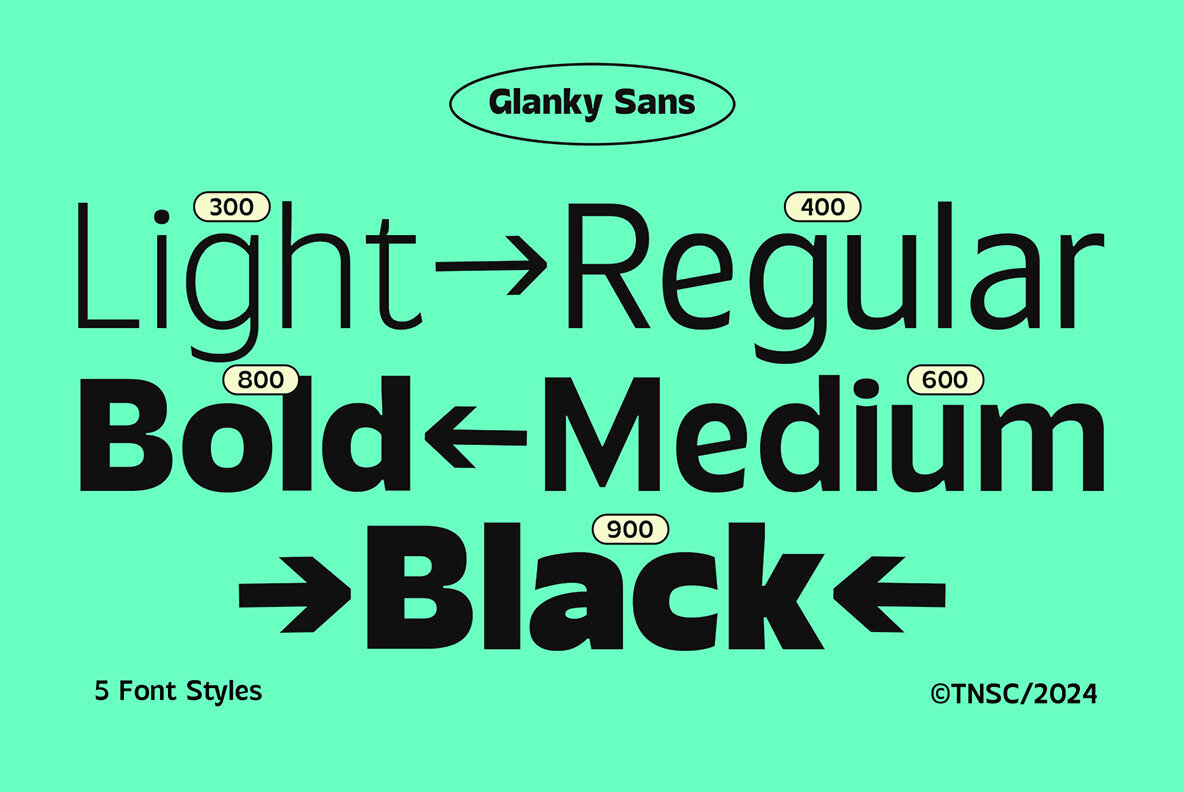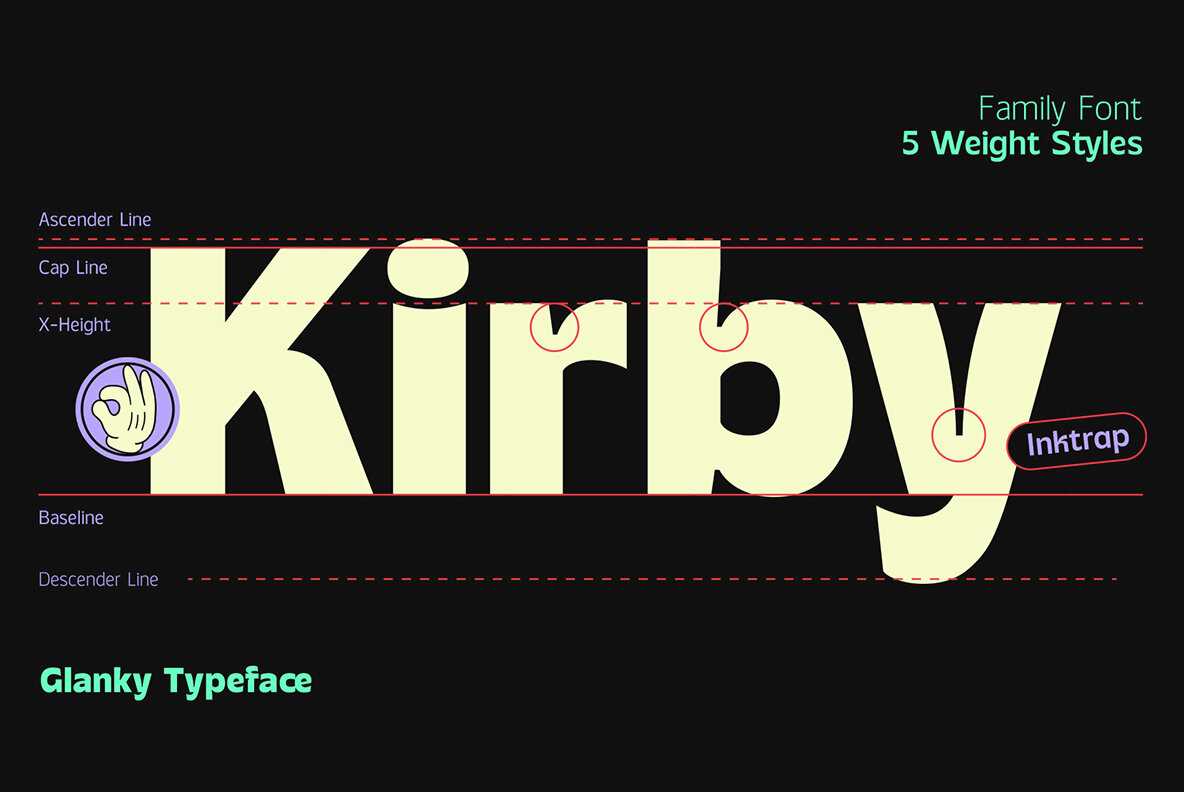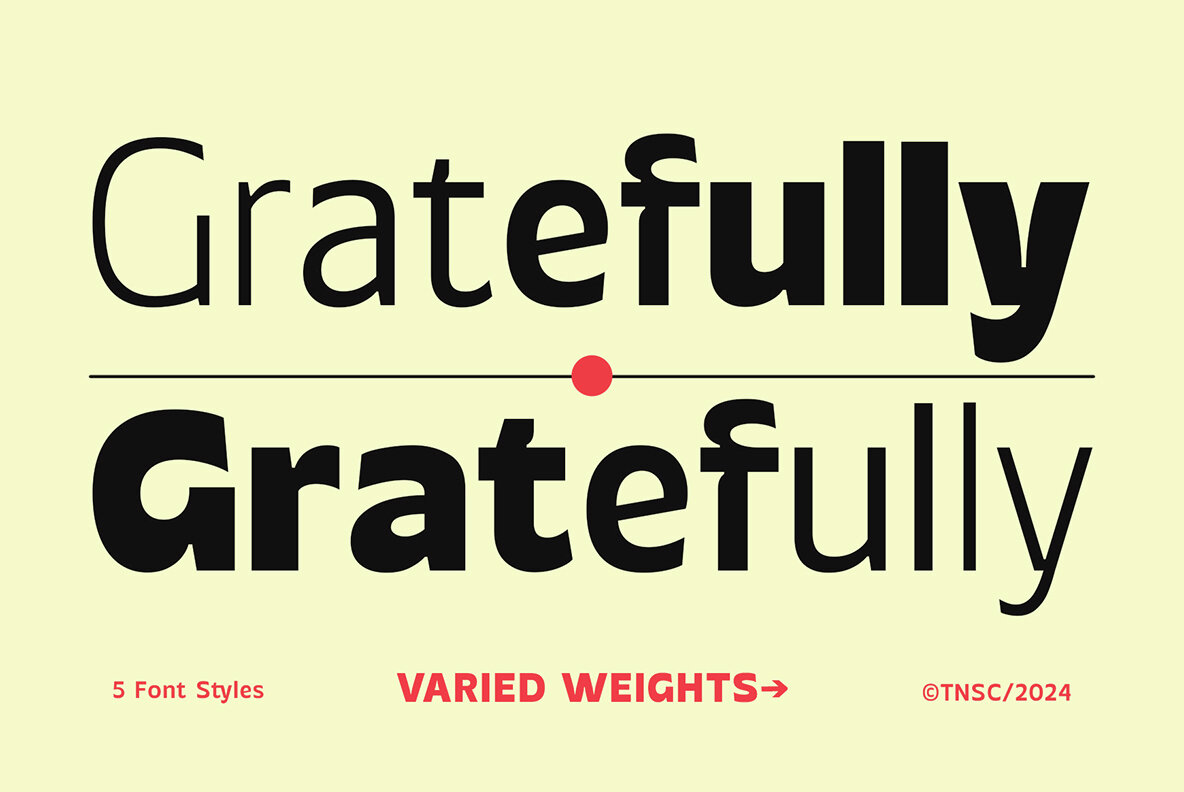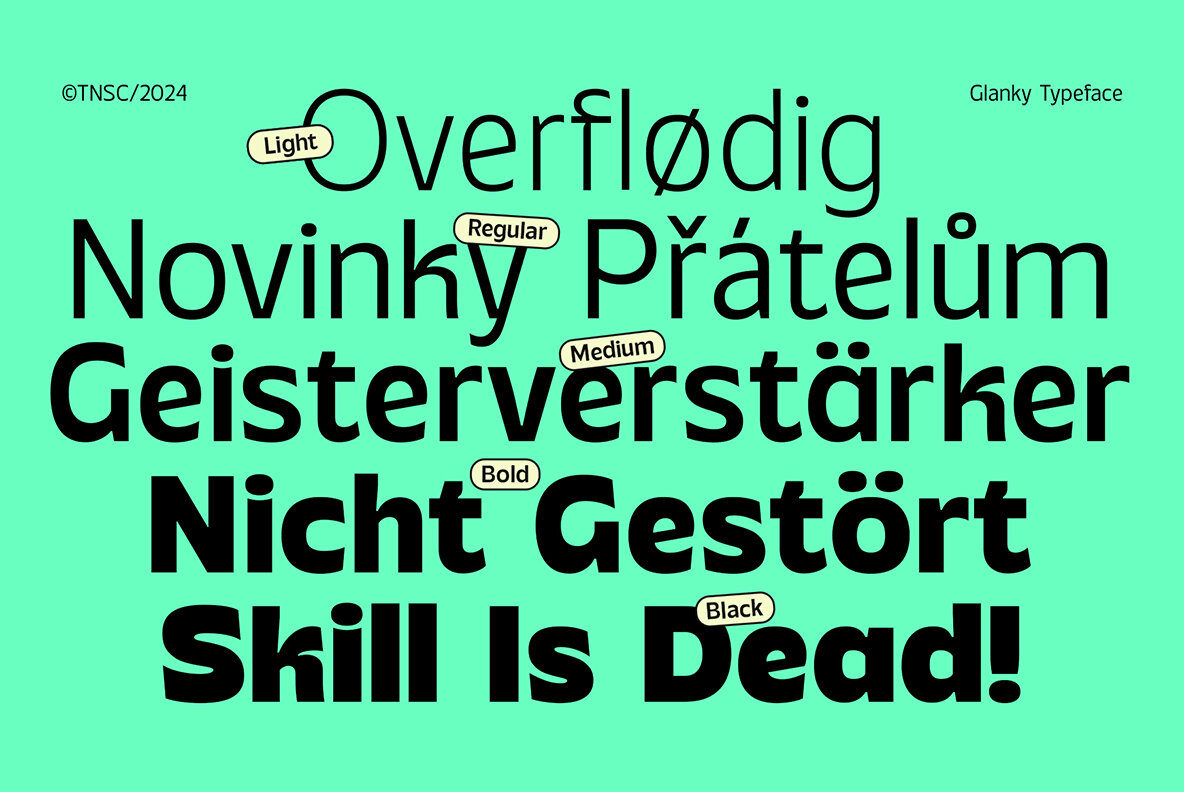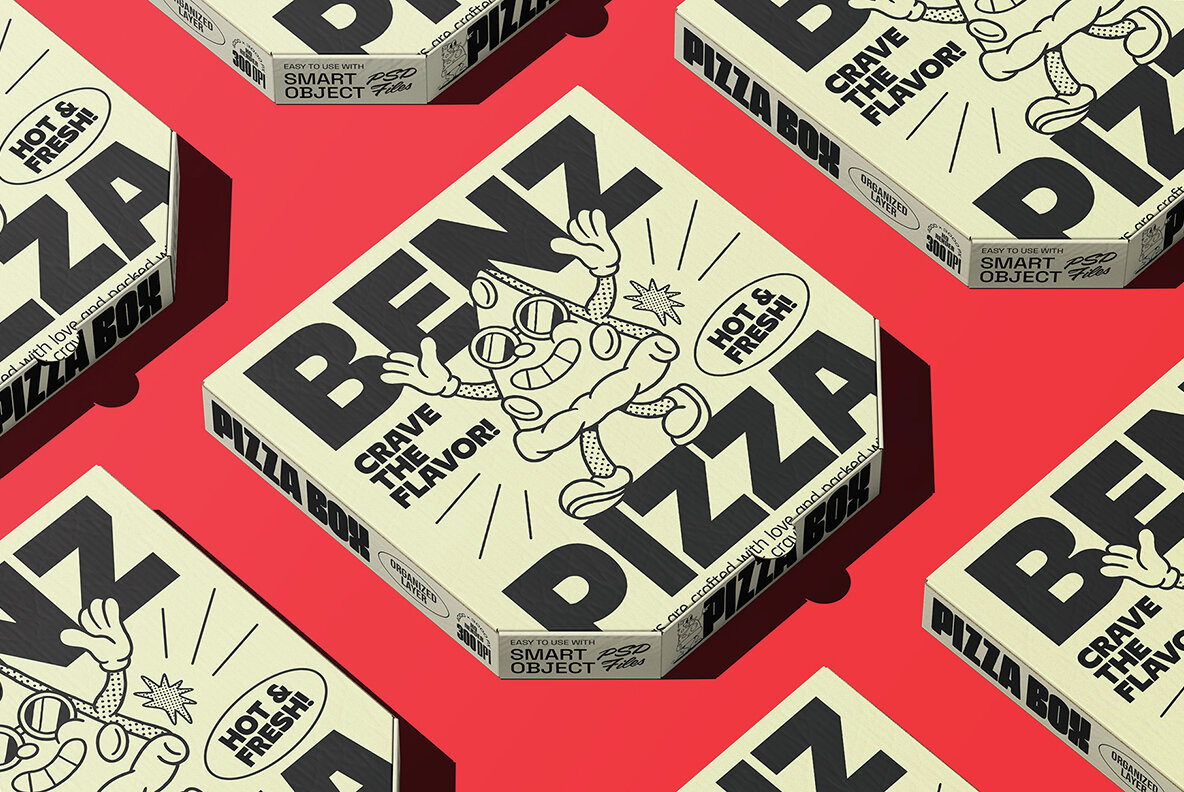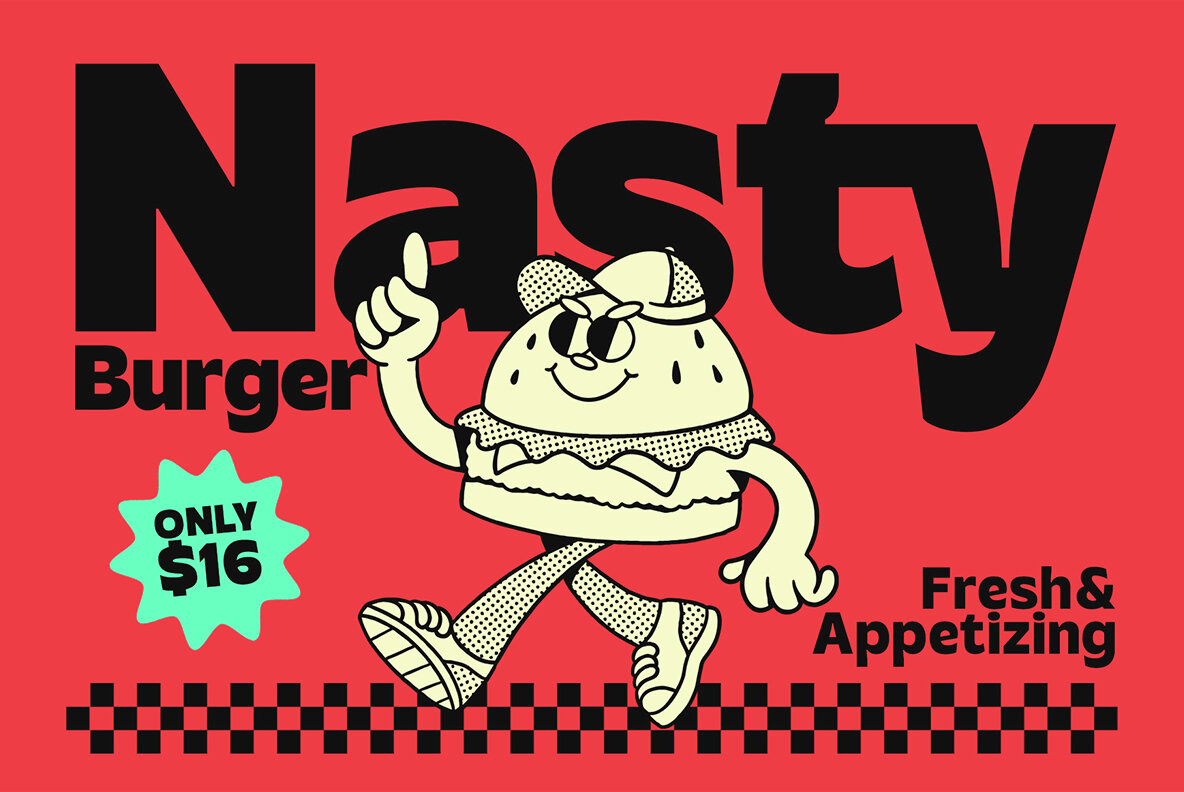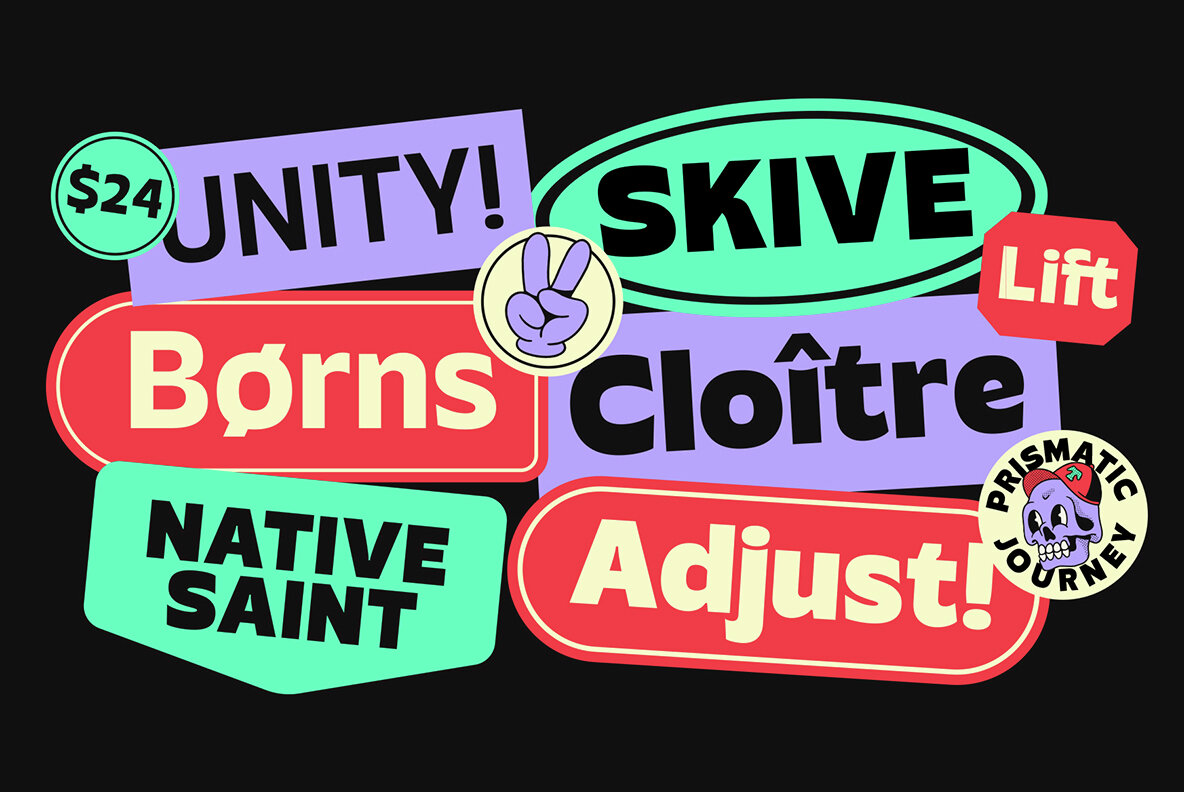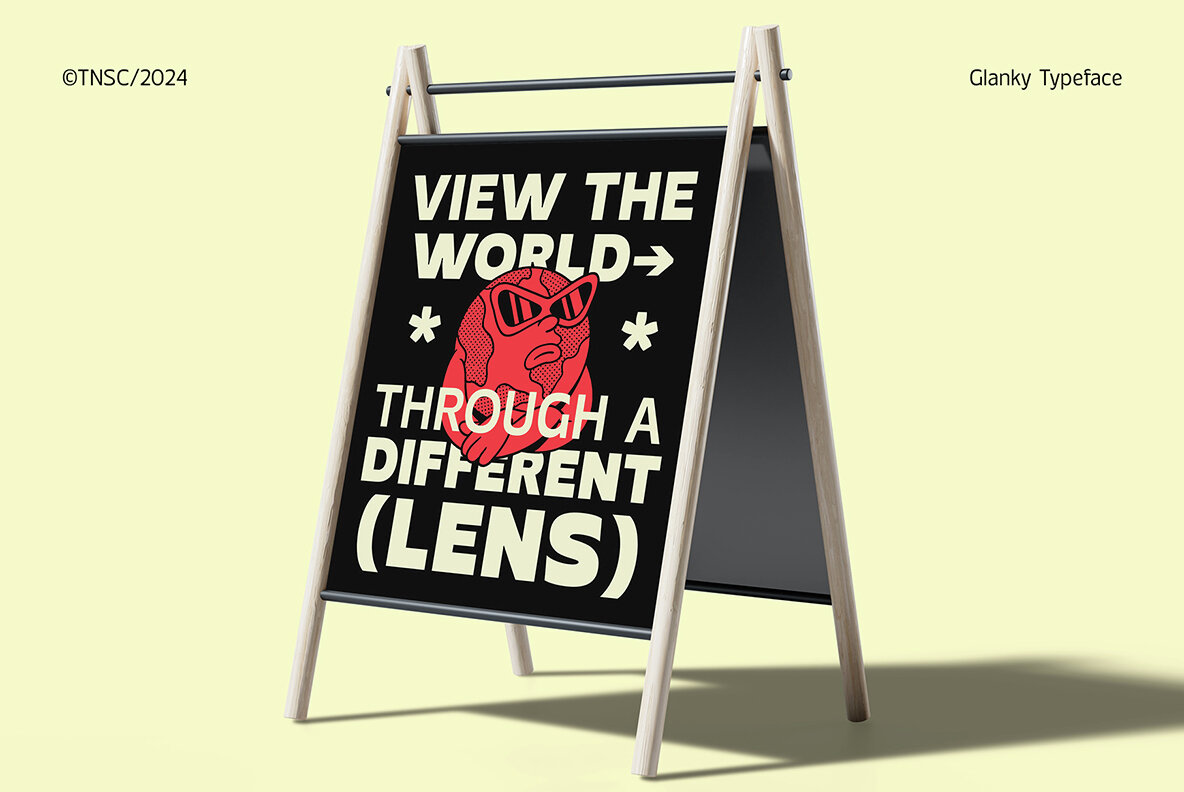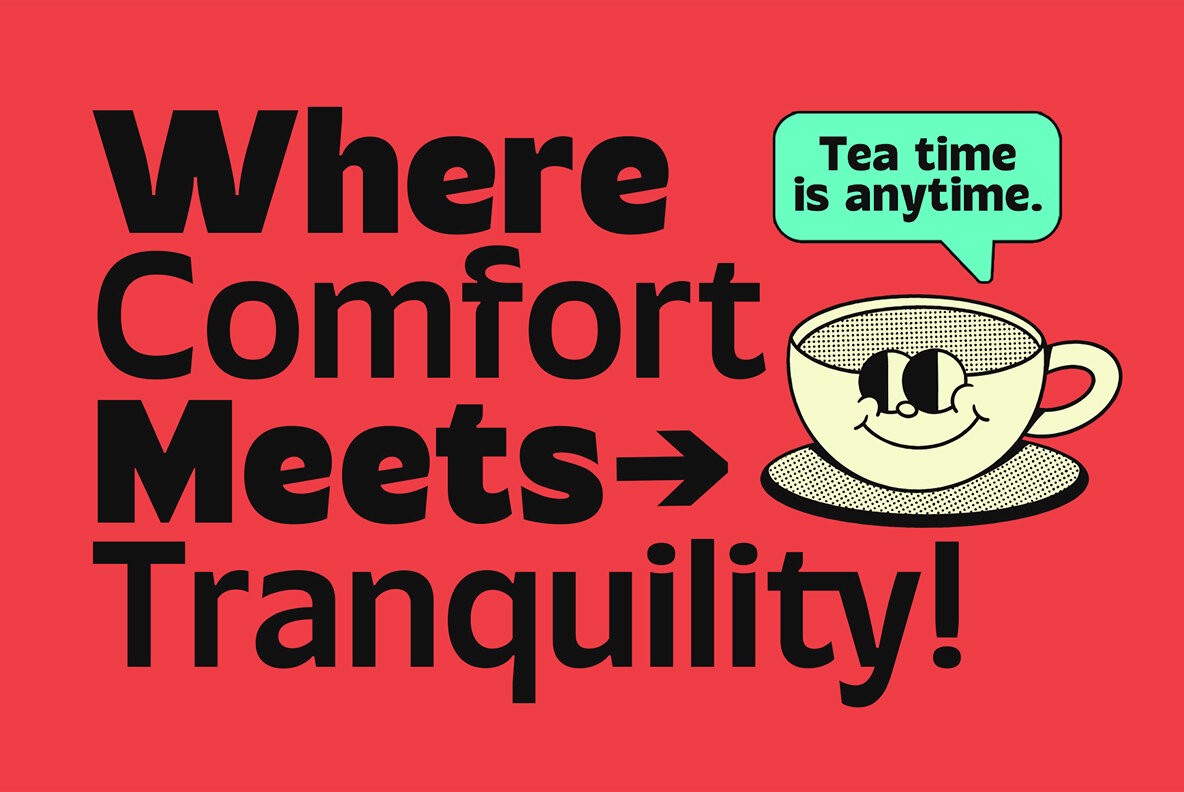
Glanky Sans Font
TNSC Glanky Sans – a variable sans serif font that combines a modern touch with versatile flexibility. With five different weights Light, Regular, Medium, Bold, and Black. Also comes with a FREE RETRO MASCOT to create better designs. Perfect for modern design projects, bringing a fresh, cheerful, unique, and stylish touch to any creative endeavor. Transform your design projects with Glanky Sans – which combines flexibility with a modern touch!